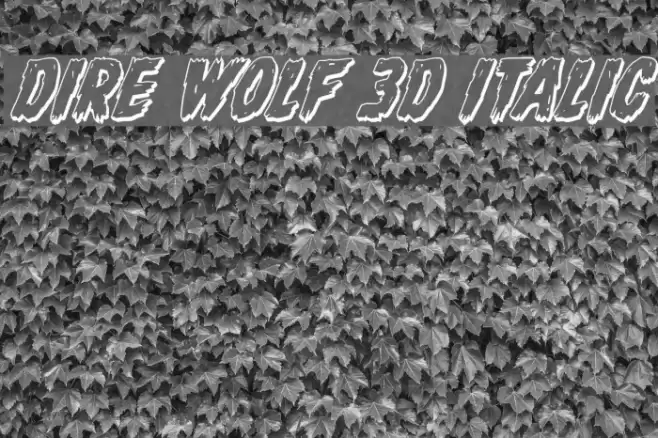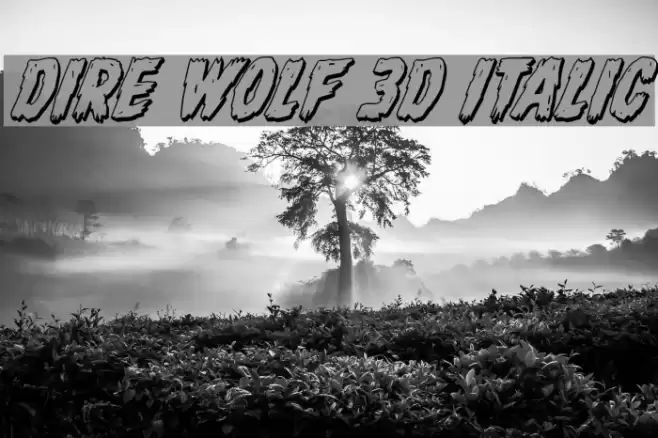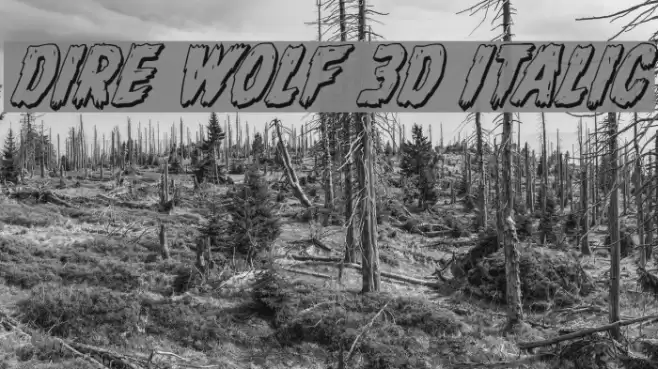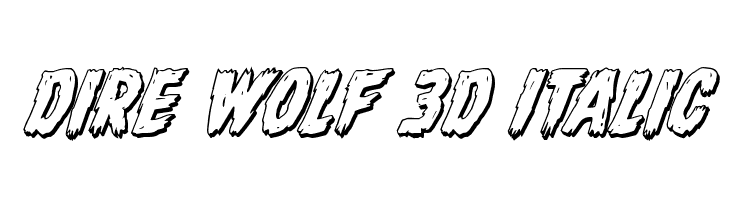
Dire Wolf 3D Italic Font
Dire Wolf 3D Italic Description
This font features a bold, dynamic style with a three-dimensional effect that gives each character a sense of depth and movement. The italicized slant adds to its energetic appearance, making it stand out with a rugged, edgy look. The strokes are thick and uneven, resembling a hand-drawn or brush-like texture, which contributes to its distinctive and aggressive aesthetic. The font maintains consistency across uppercase and lowercase letters, numbers, and special characters, all of which share the same bold and textured design. This font is ideal for projects that require a strong visual impact and a sense of action or excitement.
A bold, 3D italic font with a rugged, dynamic style from Uncategorized fonts.
- Proposed Projects: Perfect for video game titles, movie posters, sports team logos, and any project needing a bold, energetic typeface.
- Overall Style: Modern, Decorative